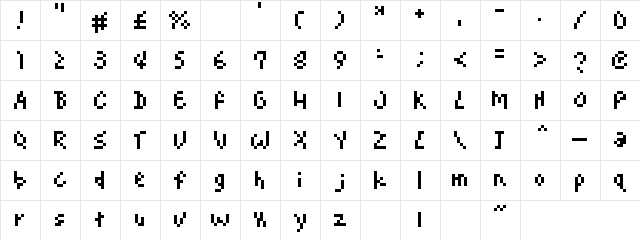
04bit-13 13
Design Context for 04bit-13 Typeface
04bit-13 is a composed and adaptable typeface that performs quietly and consistently across a wide range of design contexts.